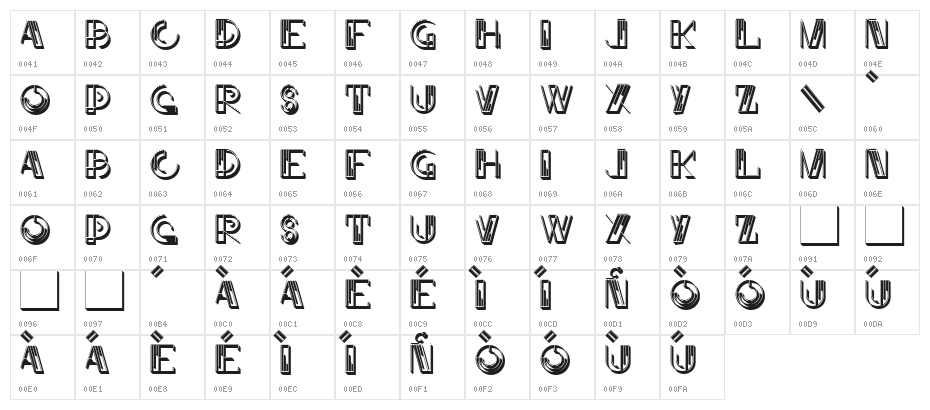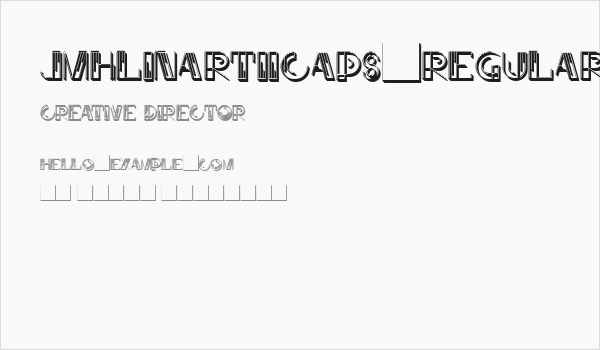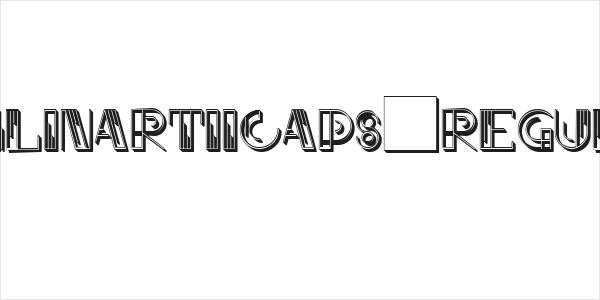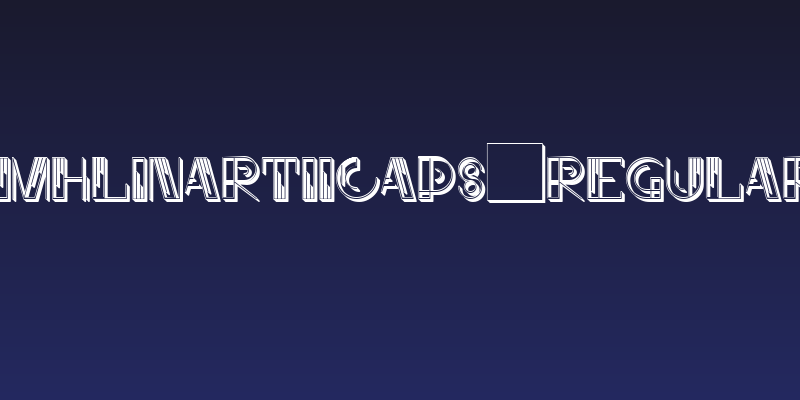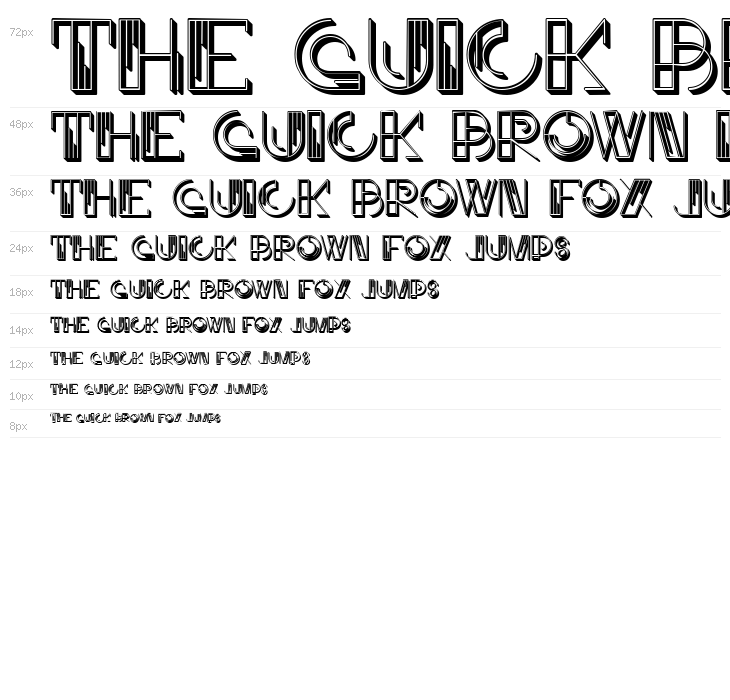
JMHLinartIICaps-Regular Font
JMHLinartIICaps-Regular Description
This font features a bold and striking design with a three-dimensional effect created by layered lines and shadows. The characters are uppercase only, with a geometric and futuristic style that emphasizes sharp angles and clean lines. The intricate detailing within each letterform adds depth and visual interest, making it ideal for attention-grabbing headlines or artistic projects. The font's unique structure and bold presence make it stand out, while maintaining legibility.